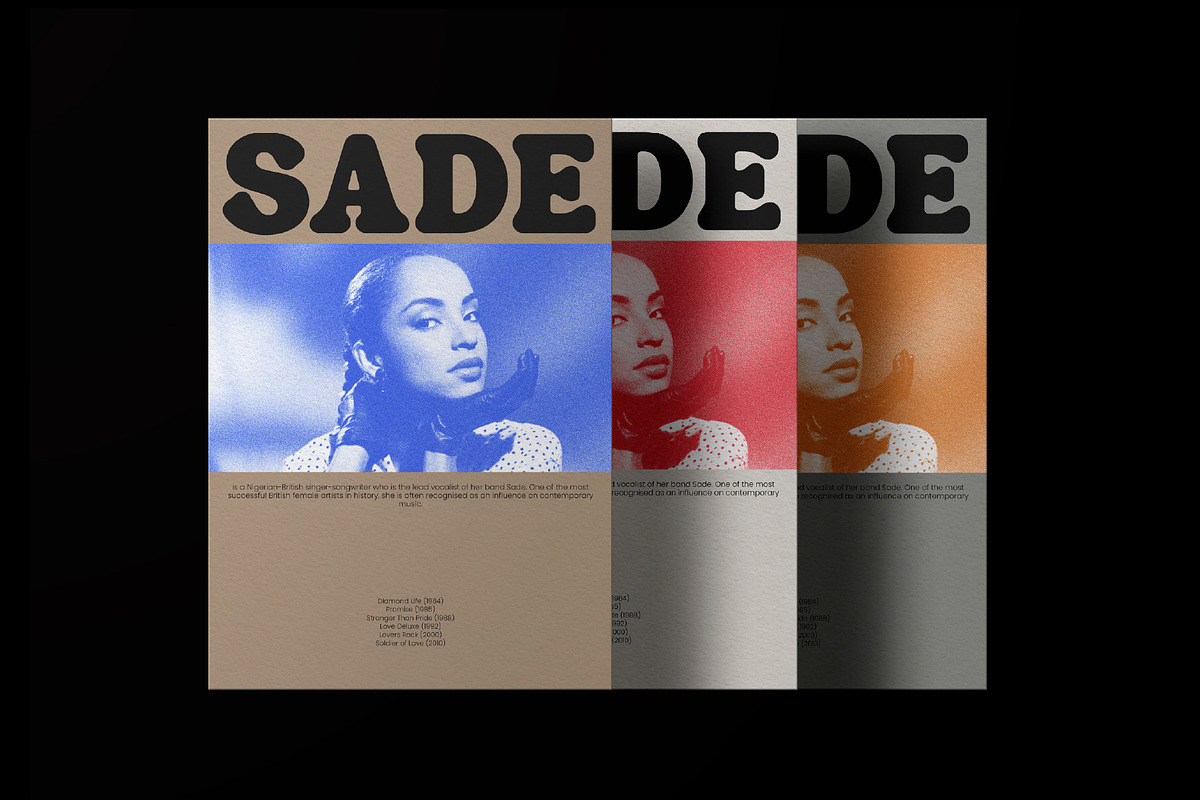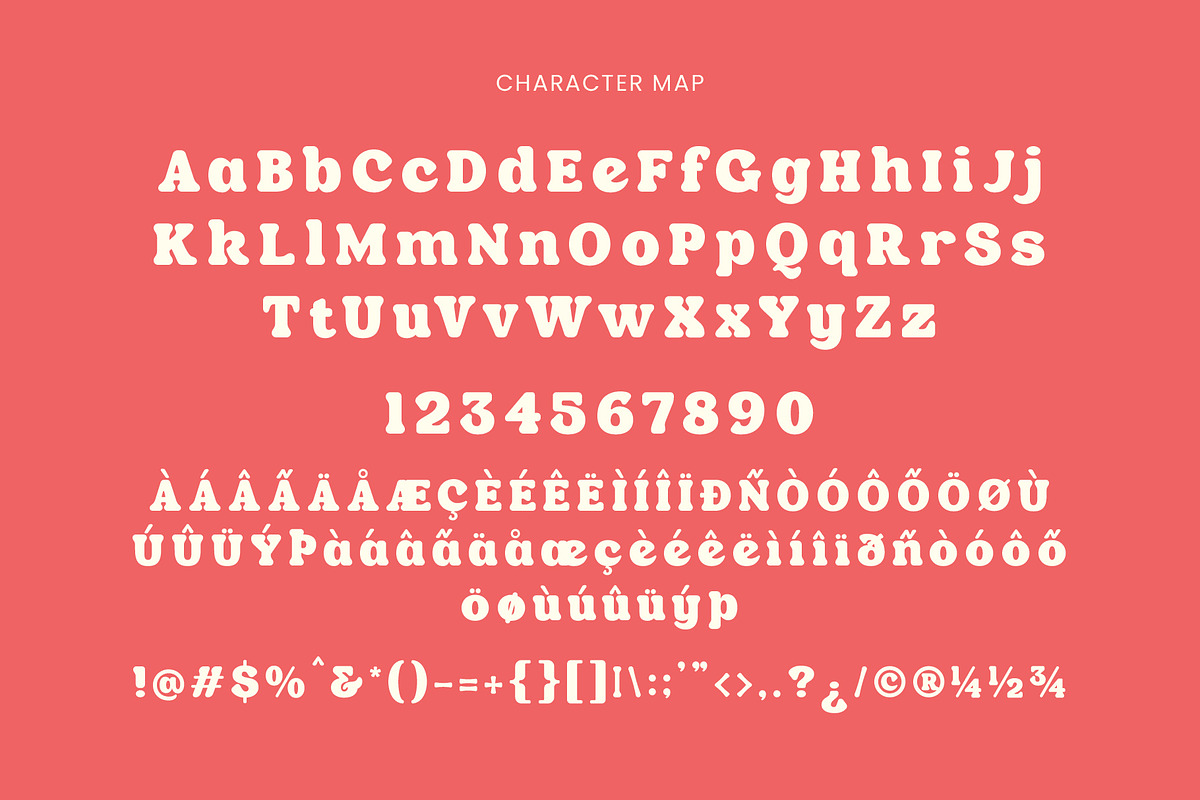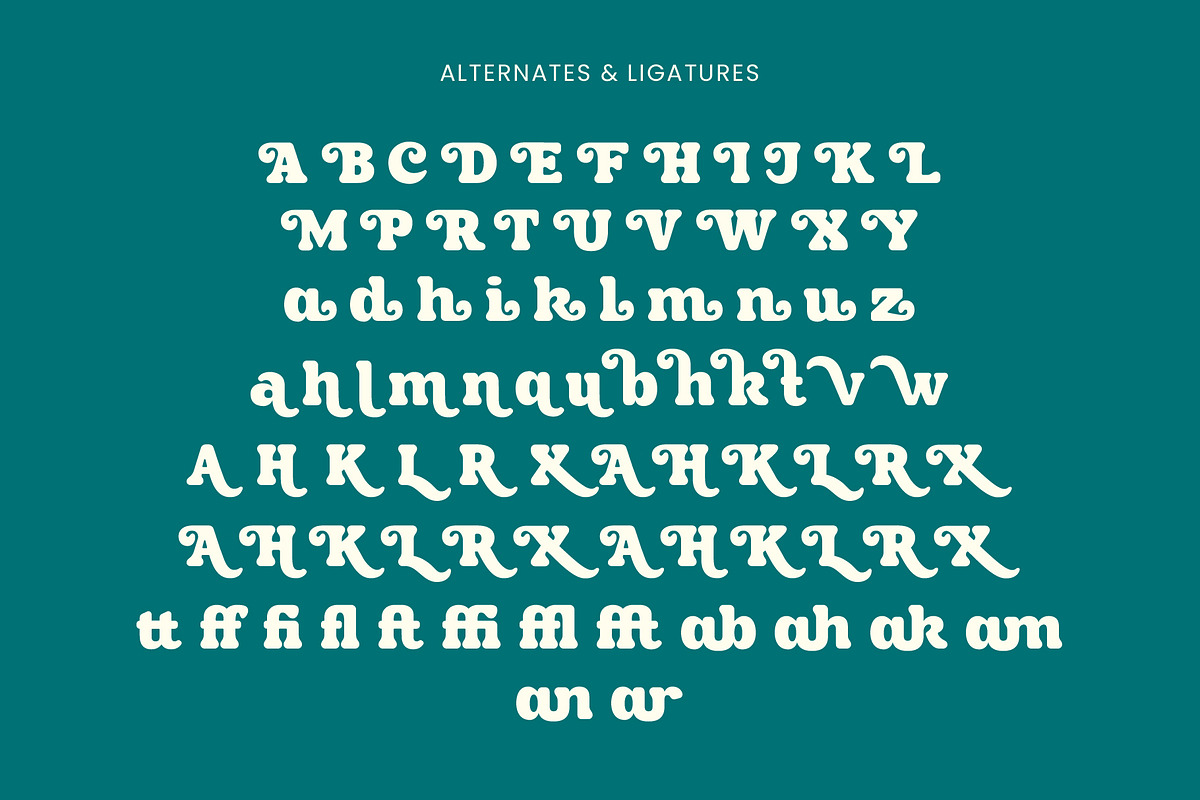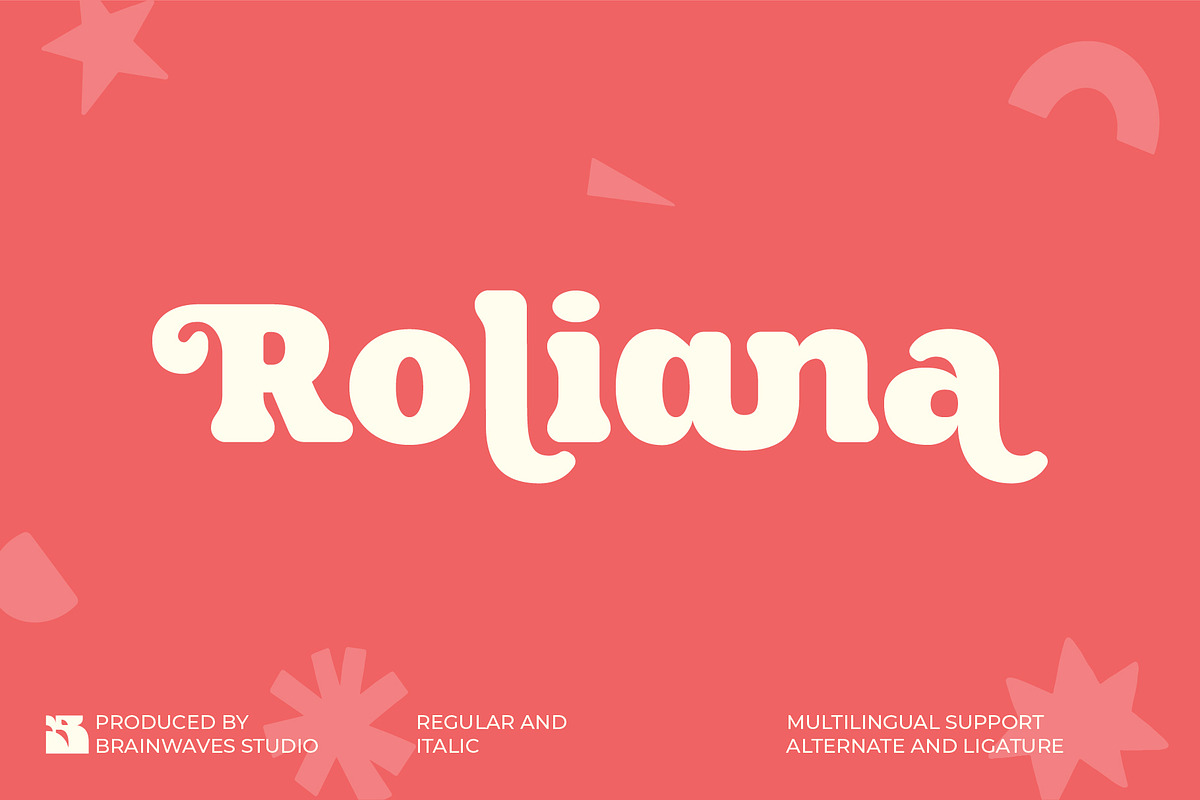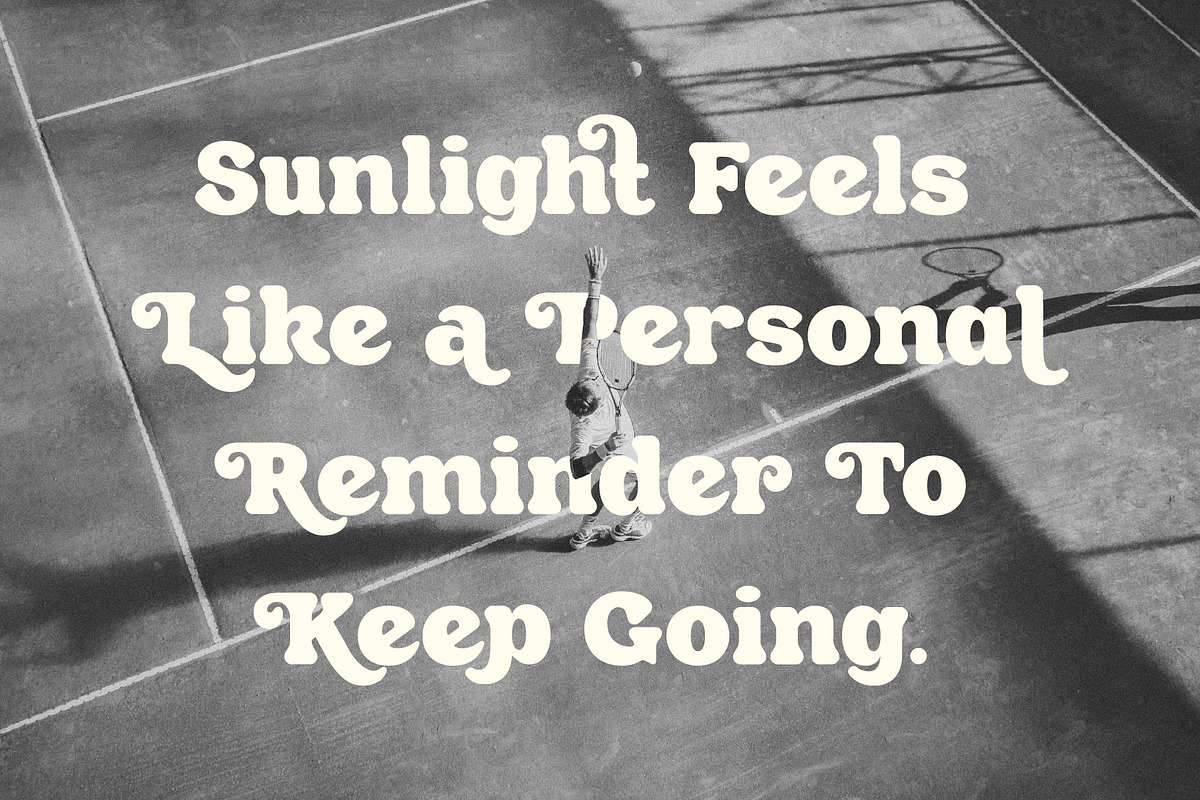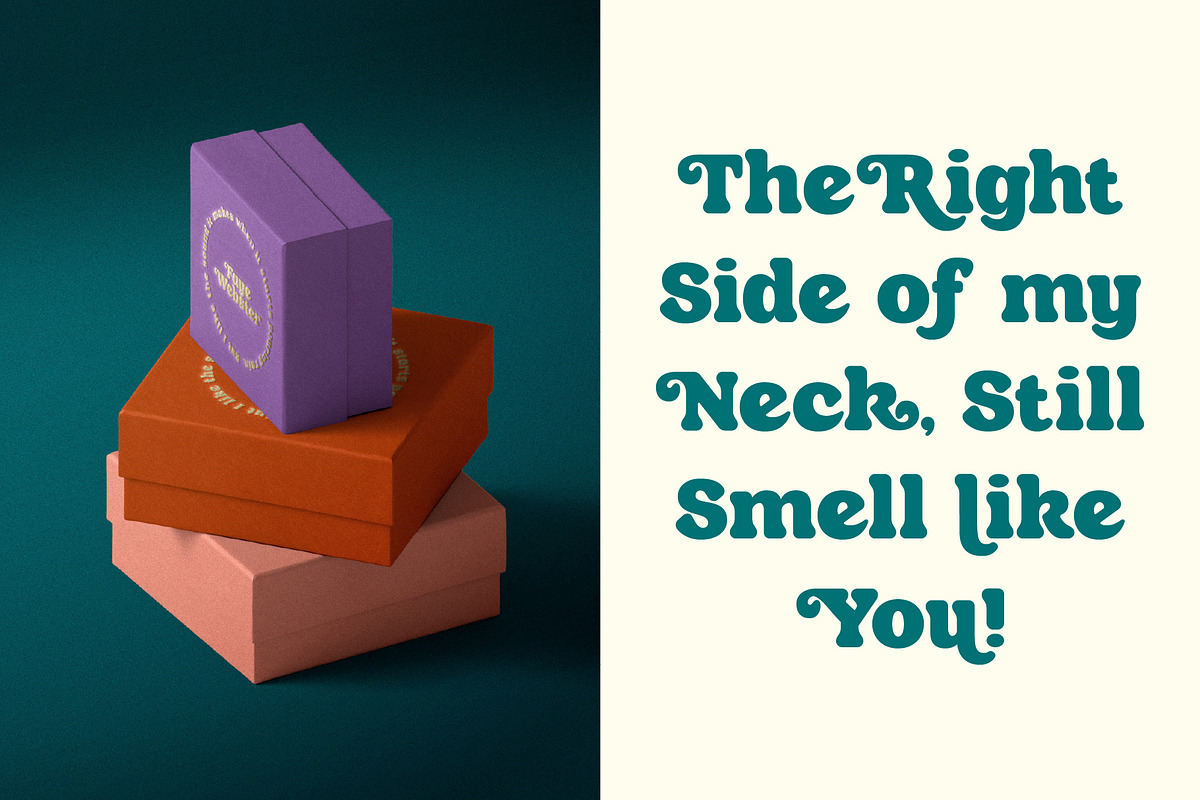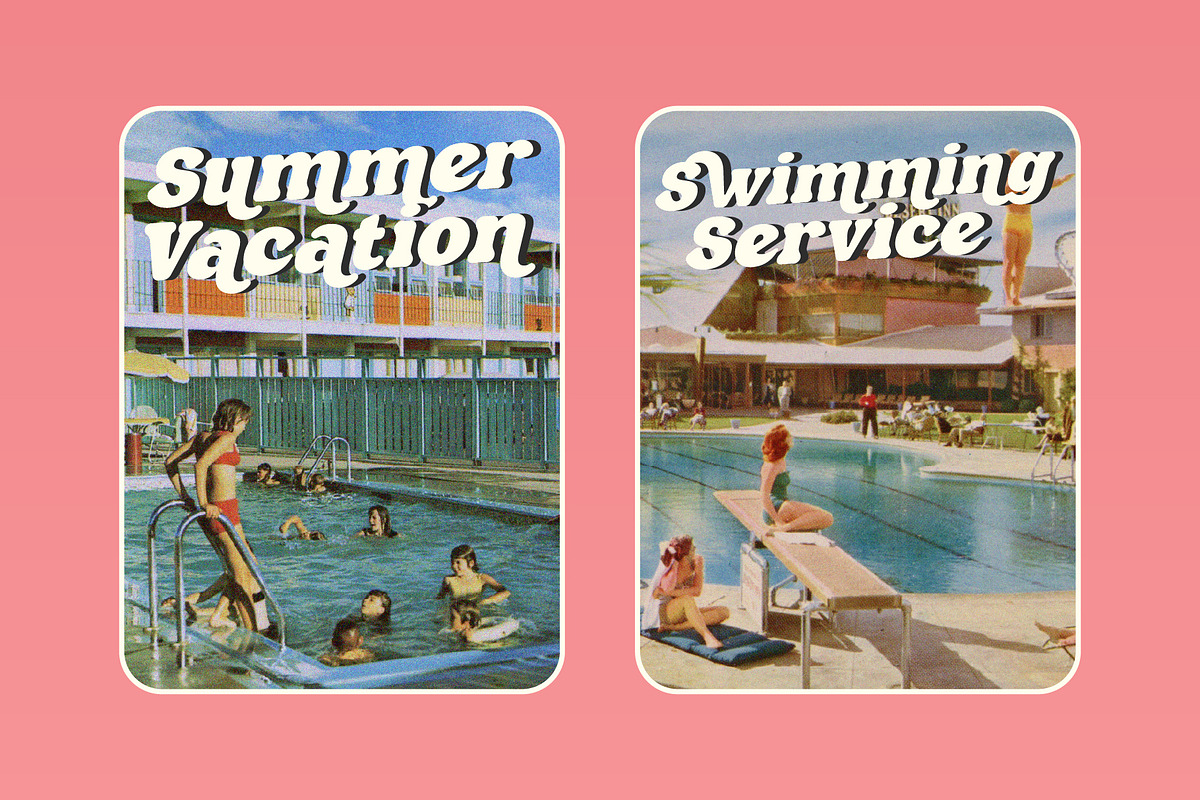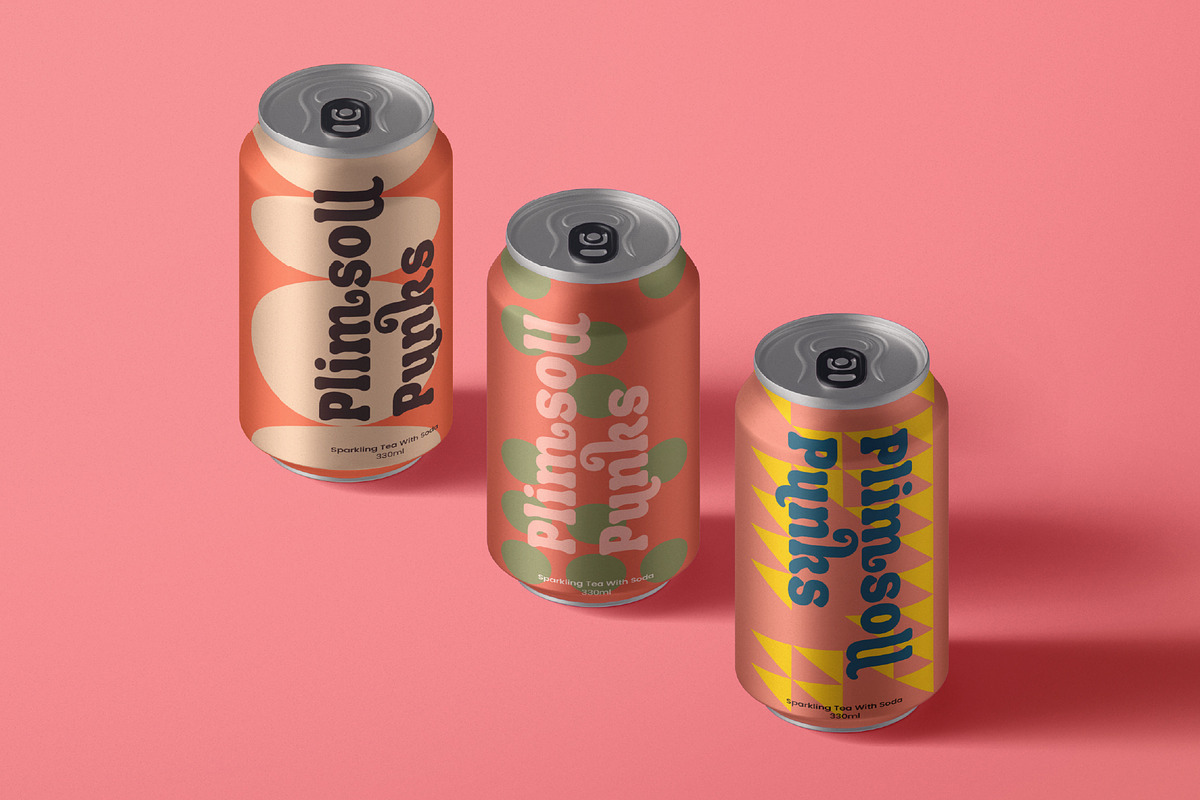
Roliana - Serif Retro Display Font
Step back in time with Roliana, the charming display serif font that's bursting with retro groovy vibes! This unique typeface brings a delightful blend of vintage nostalgia and modern flair to all your creative projects. Imagine your designs instantly captivating audiences with Roliana's chunky, bold serifs and playful, bubbly curves.
Roliana isn't just a font; it's an experience. Its distinctive alternates and ligatures allow you to craft truly one-of-a-kind headlines, logos, and branding that stand out from the crowd. Perfect for capturing that sought-after 70s or 80s feel, it ensures your message is both impactful and incredibly stylish. Whether you're designing a chic cafe logo or a fun social media graphic, Roliana adds that special touch of personality and charm.
Key Features to Love:
- Rich Alternates & Ligatures: Unlock endless creative typographic possibilities.
- Two Styles Included: Regular and Italic for versatile design applications.
- Multilingual Support: Reach a global audience with ease.
- Full Punctuation & Numbers: All the characters you need for complete designs.
Suitable For
- Retro-themed brand logos & packaging
- Vintage event invitations & posters
- Social media graphics (Instagram, Pinterest)
- Fashion & apparel designs (t-shirts)
- Editorial headlines & book covers
- Podcasts & YouTube channel branding
- Boutique & artisan product labels